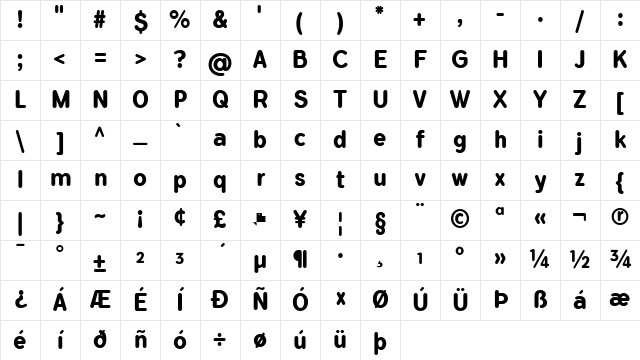
Flamante Round Bold
Foundry: deFharo
Designer: Fernando Haro
Design Context for Flamante Round
Flamante Round softens its letterforms with rounded terminals, giving it an approachable, friendly quality that works well in consumer-facing and digital contexts. Its bold stroke weight gives it real presence on the page.
Font Pairing: Pairs well with a rounded or humanist sans for body copy, maintaining the friendly tone without relying on Flamante Round to carry extended reading.
Pro Tip: Use Flamante Round for UI elements, app interfaces, and anywhere a friendly, approachable tone needs to be maintained without sacrificing clarity.